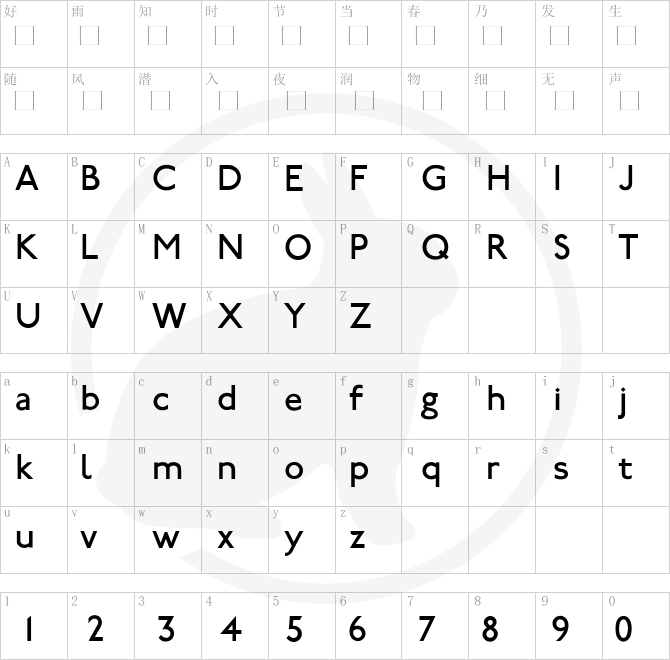
- Font Name:P22JohnstonUnderground
P22JohnstonUnderground.ttf is a very beautiful artistic font, P22JohnstonUnderground.ttf is widely used in the design and printing of various books and pictures,P22JohnstonUnderground.ttf has a strong visual impact,P22JohnstonUnderground.ttf is a commonly used font in newspapers, magazines and books, and is used in posters, e-commerce Poster design, store design, logo design, font design and other fields.P22JohnstonUnderground.